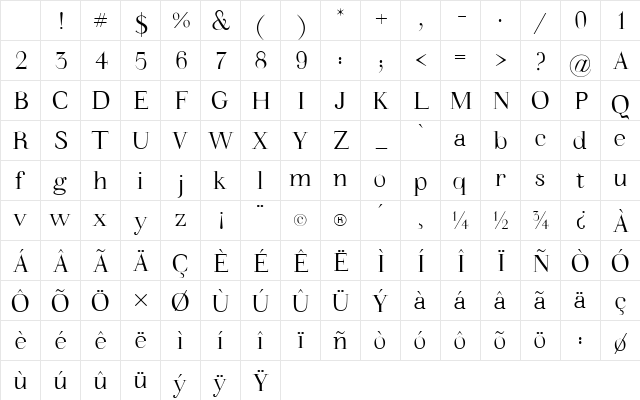
Walina Regular Free Font
Walina Regular
Foundry: Adri￿n Yanes M￿rquez
Designer: Adri￿n Yanes M￿rquez
Walina Family
Design Context for Walina
Walina is a composed and adaptable typeface that performs quietly and consistently across a wide range of design contexts.